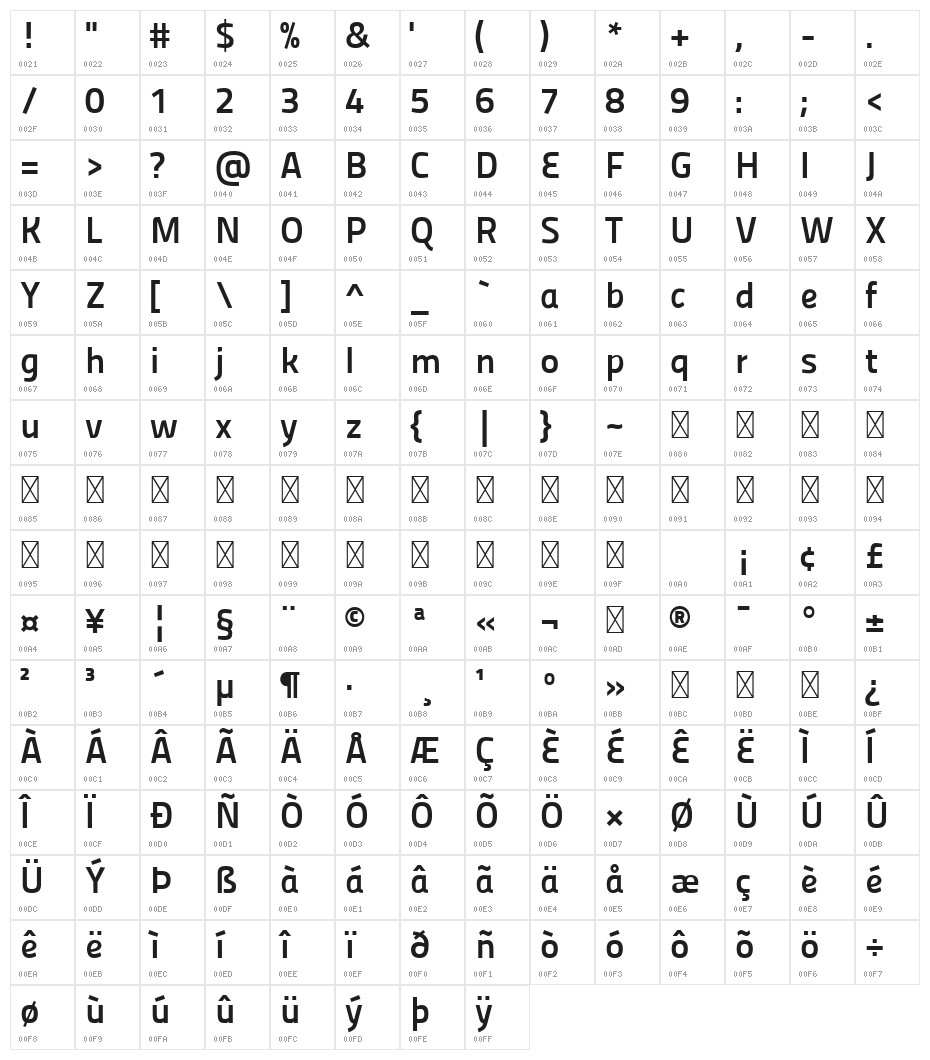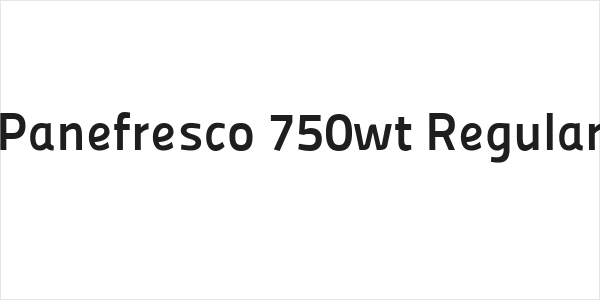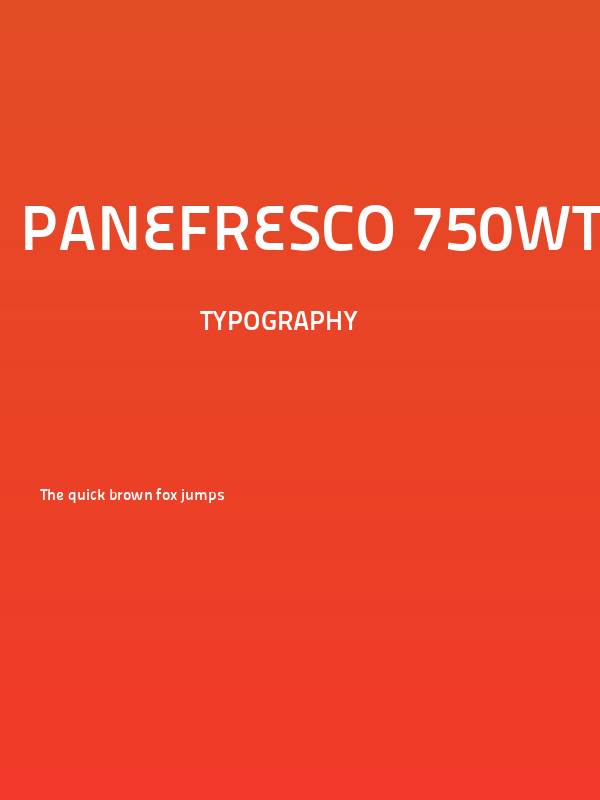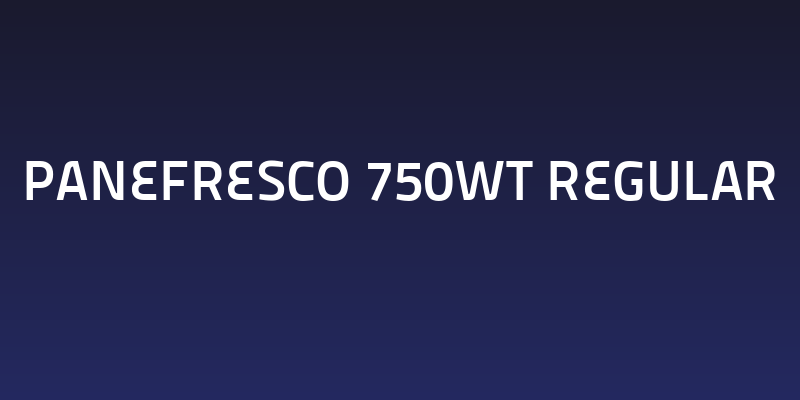
Panefresco 750wt Regular Font
Panefresco 750wt Regular Description
This font features a clean and modern sans-serif design with a strong geometric influence. The characters are well-balanced, with consistent stroke widths that provide a uniform appearance. The uppercase letters are bold and assertive, while the lowercase letters maintain a friendly and approachable look. The numerals are clear and easy to read, making them suitable for a variety of applications. Special characters are included, offering versatility for different design needs. The overall style is contemporary, making it ideal for modern branding and digital interfaces.
| Proposed Projects | Ideal for branding, digital interfaces, advertising, and editorial design. |